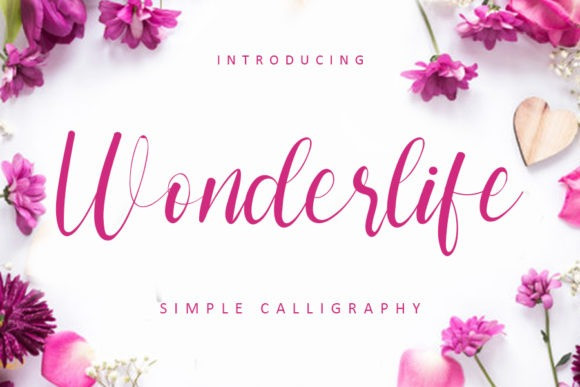
Wonderlife Font
Wonderlife Font is a romantic and sweet script font. It has a casual, yet elegant touch. Add it to your most creative ideas and notice how it makes them come alive!